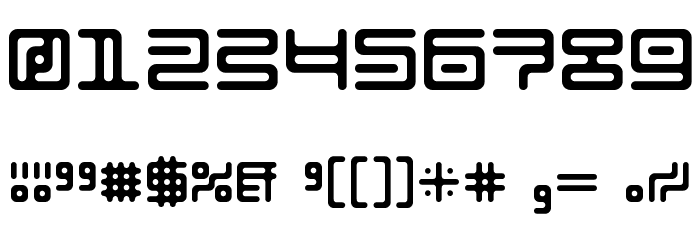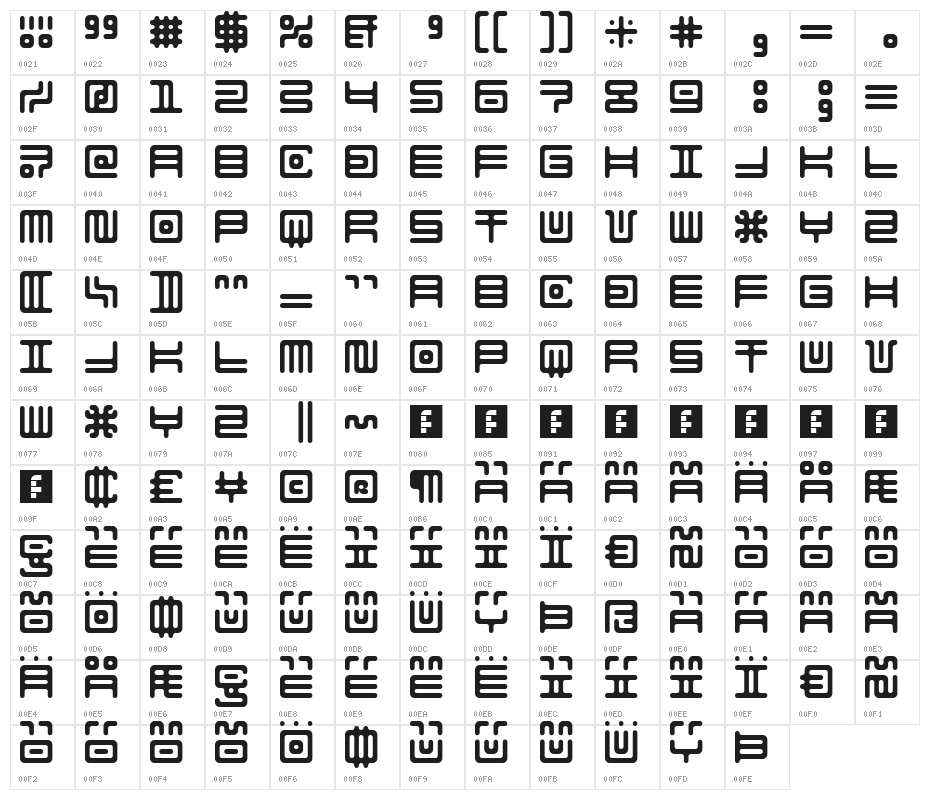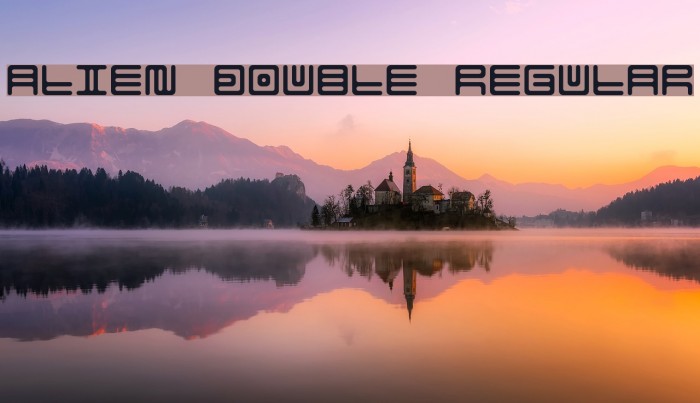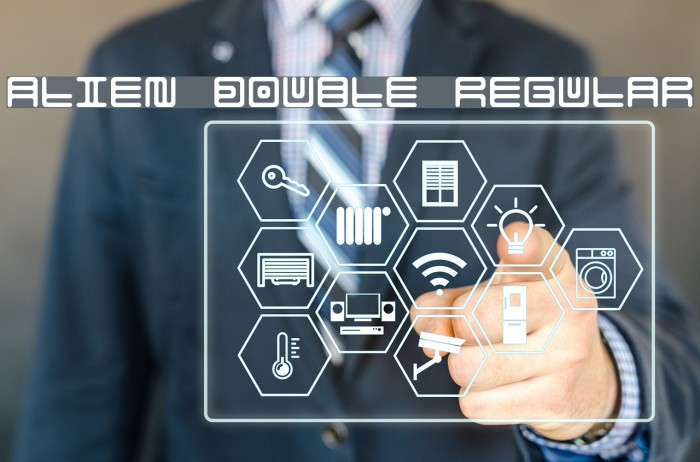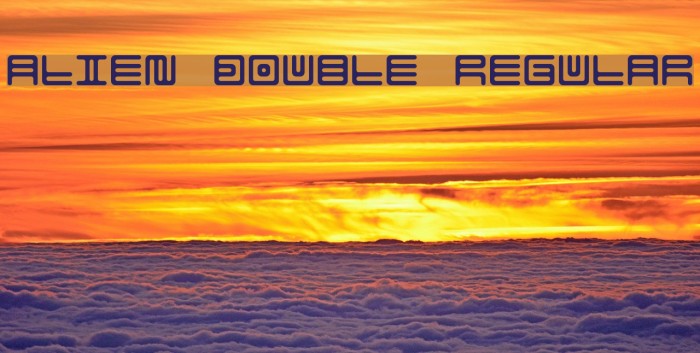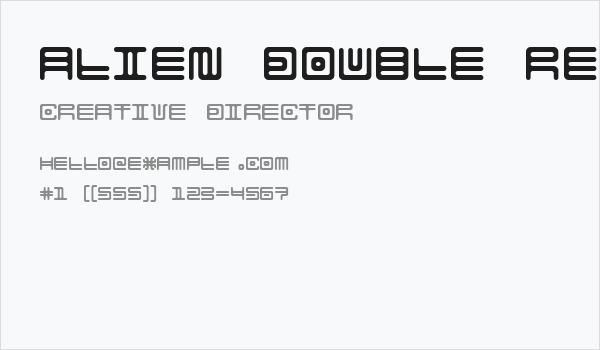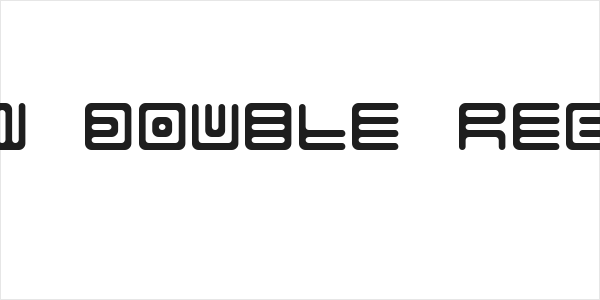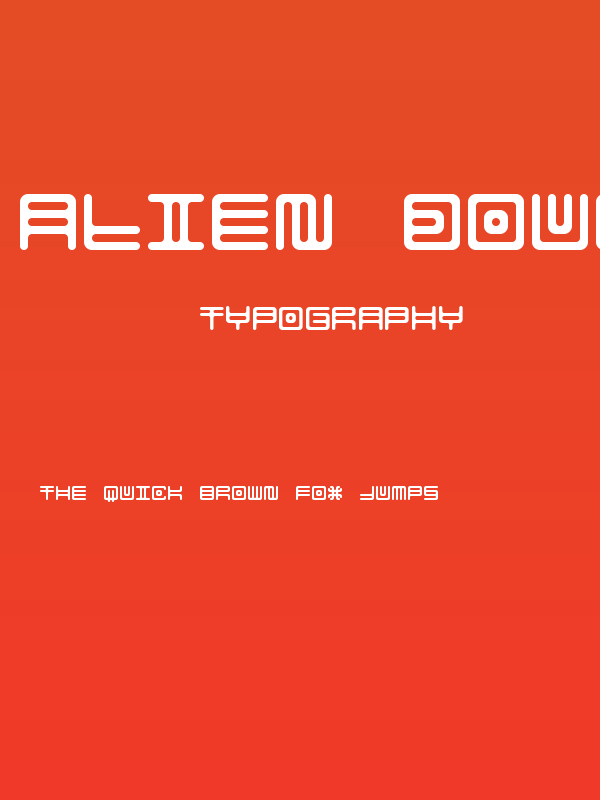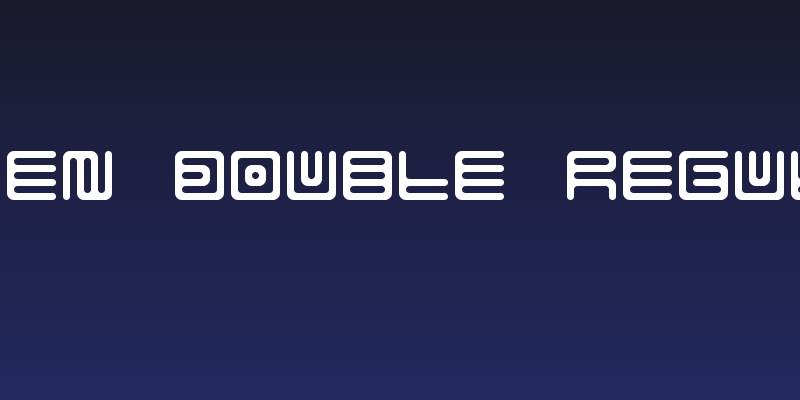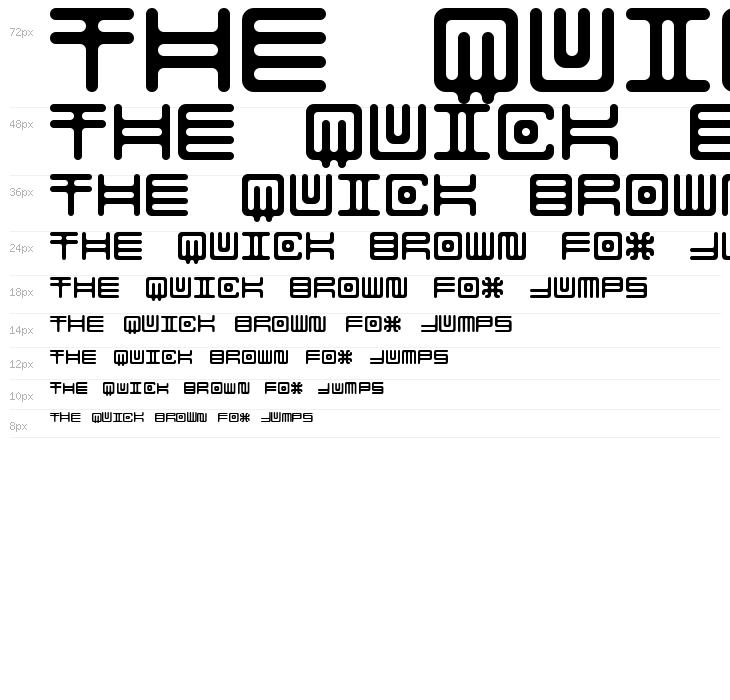
Alien double Regular Font
Alien double Regular Description
This font features a futuristic and geometric design, characterized by its bold, rounded edges and consistent line thickness. The letters are constructed with a double-line effect, creating a sense of depth and dimension. The uppercase and lowercase letters share a similar structure, maintaining uniformity across the typeface. Numbers and special characters are designed to match the overall aesthetic, with a focus on symmetry and balance. The font's unique style is reminiscent of science fiction themes, making it ideal for projects that require a modern and innovative look.
| Proposed Projects | Ideal for sci-fi themed designs, technology branding, video game titles, and futuristic posters. |